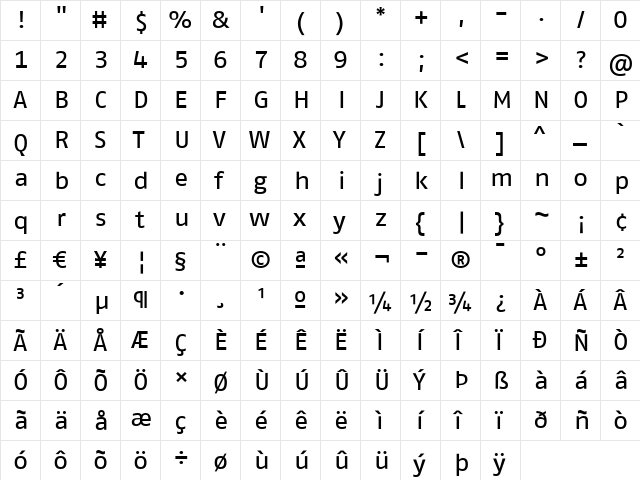
FagoExTf Regular Font Preview
FagoExTf Regular
FagoExTf Regular Font Details
| Foundry | Ole Schaefer, . Published by FontShop International for FontFont Release Fago Extended is a trademark of FSI Fonts and Software GmbH |
Design Context for FagoExTf Typeface
FagoExTf takes a measured approach to typography — its balanced proportions and neutral character make it a reliable workhorse for both digital and print work.